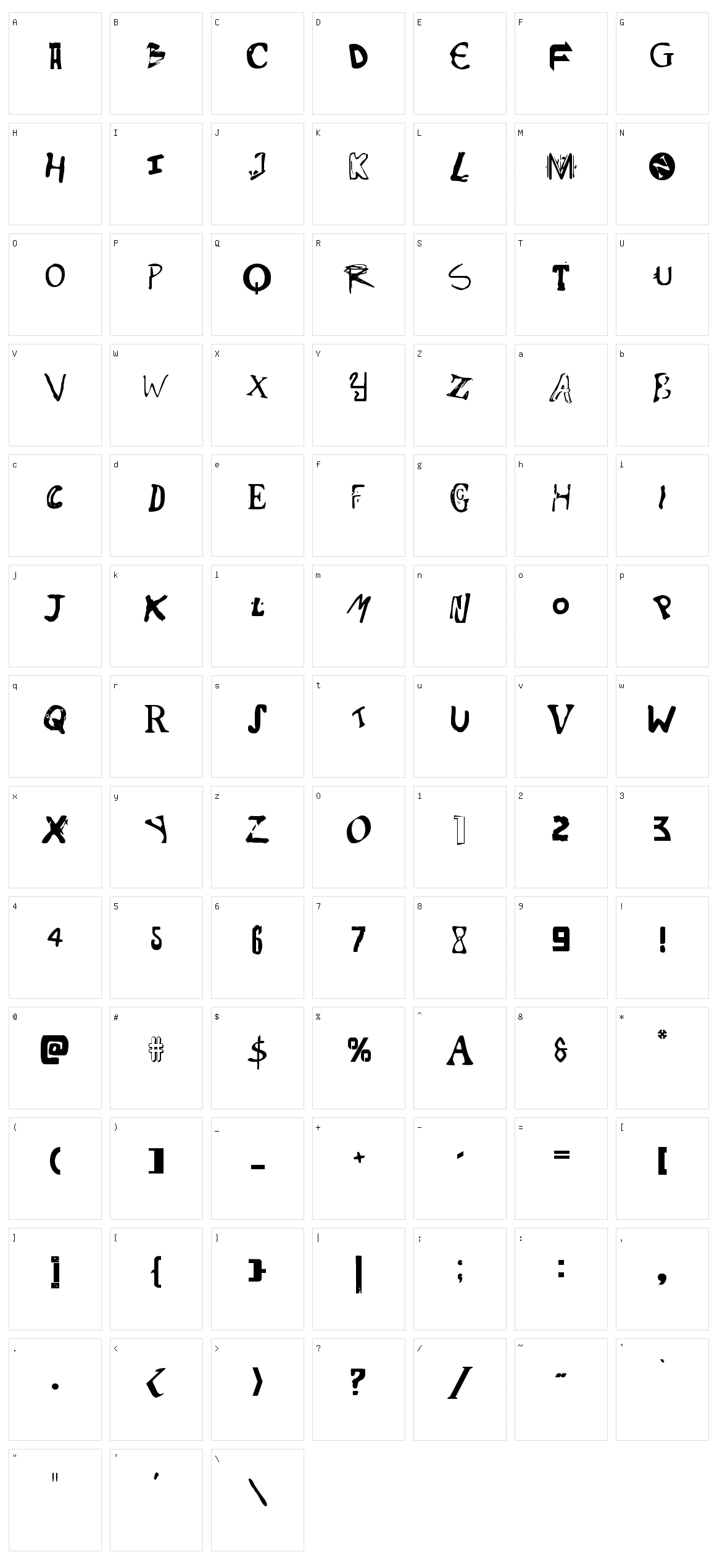
The free font Psycho Butcher is carefully designed by Iconian Fonts, showcasing a thoughtful balance of creativity and usability and falls under the Horror font style. When you download the ZIP file, it contains only 32.58 KB of font files, making it lightweight and quick to download. Please review the license details below to understand permitted usage and distribution rights. If license information is not available, we recommend using this font for personal projects only or contacting the author directly for commercial usage permissions.